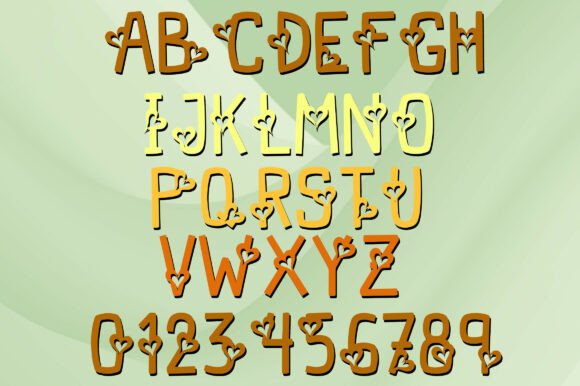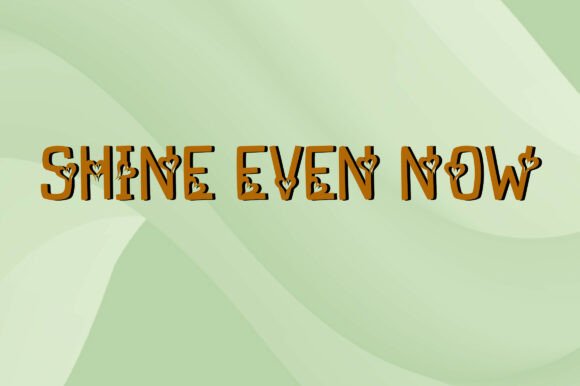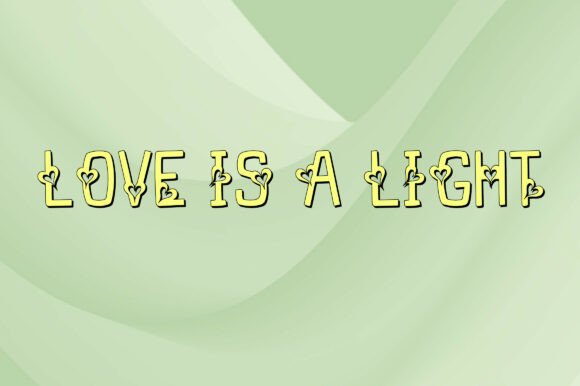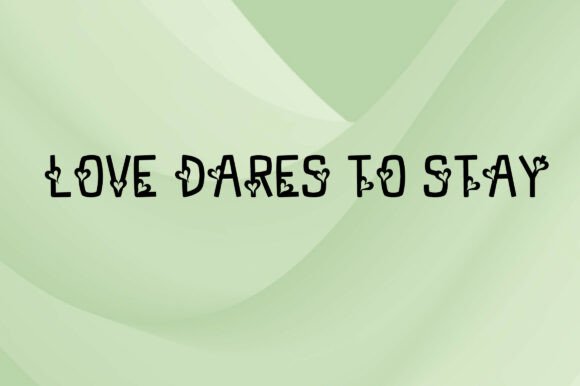
Introducing Danielle Font: The Playful Decorative Display Font with a Charming Handcrafted Style
Are you tired of using the same old fonts for your design projects? Do you want to add a touch of whimsy and personality to your creations? Look no further than Danielle Font, a playful decorative display font that is sure to capture your imagination. With its charming handcrafted style and sweet floral personality, Danielle Font is the perfect choice for designers and crafters looking to add a unique and artistic touch to their work.
What Makes Danielle Font So Special?
Danielle Font is a beautifully designed font that features tall, slightly uneven uppercase letterforms with bold shadow details and cute heart-leaf accents. These charming details give the font a whimsical and artistic feel that is sure to make your designs stand out. The font is designed with uppercase letters A-Z and numbers 0-9, making it perfect for a wide range of design projects, from logos and branding to posters, invitations, and social media graphics.
Danielle Font is a versatile font that is perfect for designers and crafters who want to add a fun and memorable typeface to their projects. Whether you’re creating a logo, designing a poster, or crafting a greeting card, Danielle Font is sure to bring a touch of personality and whimsy to your work. The font’s charming handcrafted style and sweet floral personality make it perfect for a wide range of design projects, including:
- Logos and branding: Add a touch of personality to your brand with Danielle Font’s unique and artistic style.
- Posters and flyers: Create eye-catching posters and flyers that are sure to grab attention.
- Invitations and greeting cards: Add a touch of whimsy to your invitations and greeting cards with Danielle Font’s charming handcrafted style.
- Packaging and stickers: Use Danielle Font to create fun and memorable packaging and stickers.
- Social media graphics: Add a touch of personality to your social media graphics with Danielle Font’s playful and artistic style.
Key Features of Danielle Font
Here are some of the key features that make Danielle Font so special:
- Playful decorative display font with a charming handcrafted style
- Sweet floral personality with cute heart-leaf accents
- Tall, slightly uneven uppercase letterforms with bold shadow details
- Designed with uppercase letters A-Z and numbers 0-9
- Perfect for logos, branding, posters, invitations, greeting cards, packaging, stickers, and social media graphics
Why Choose Danielle Font?
There are many fonts to choose from, but Danielle Font stands out from the crowd. Here are just a few reasons why you should choose Danielle Font for your next design project:
- Unique and artistic style: Danielle Font’s charming handcrafted style and sweet floral personality make it a one-of-a-kind font that is sure to make your designs stand out.
- Versatile: Danielle Font is perfect for a wide range of design projects, from logos and branding to posters, invitations, and social media graphics.
If you’re looking for a font that will add a touch of whimsy and personality to your design projects, look no further than Danielle Font. With its charming handcrafted style and sweet floral personality, Danielle Font is the perfect choice for designers and crafters who want to create unique and artistic designs. Whether you’re creating a logo, designing a poster, or crafting a greeting card, Danielle Font is sure to bring a touch of personality and whimsy to your work.